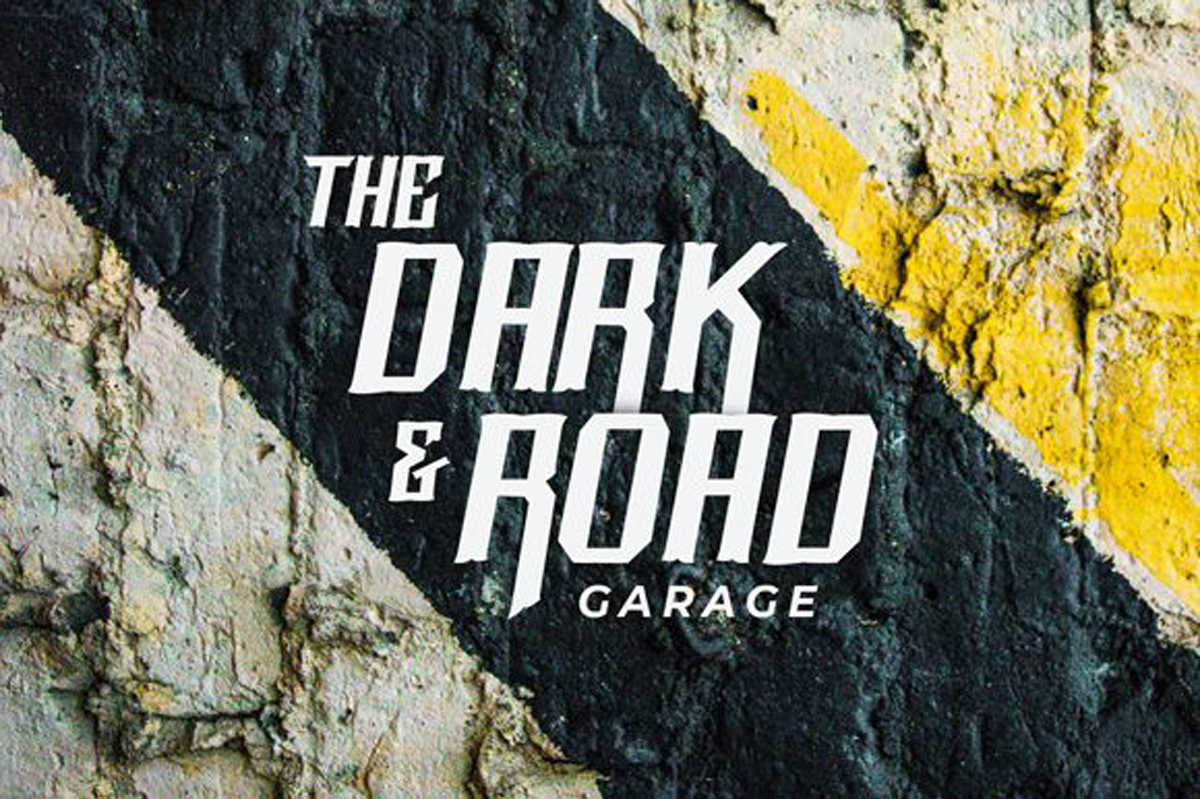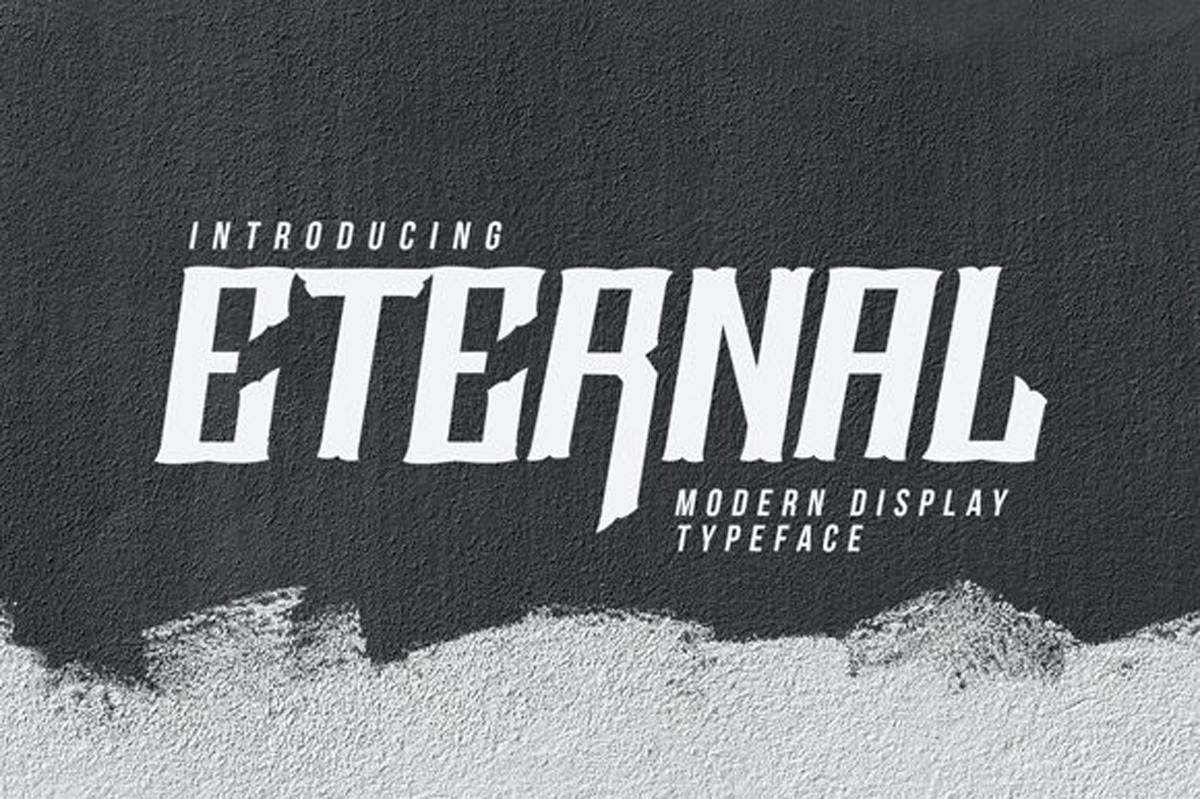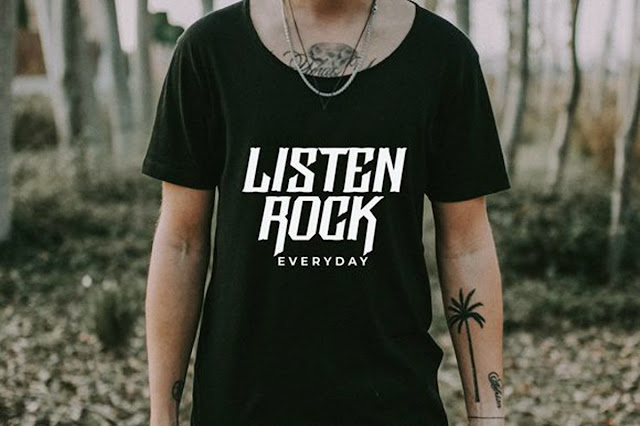
Eternal Font
Free Download Eternal Font with high speed direct link. Eternal is a bold and chunky lettered display font. Add this font to your favorite creative ideas and notice how it makes them come alive!